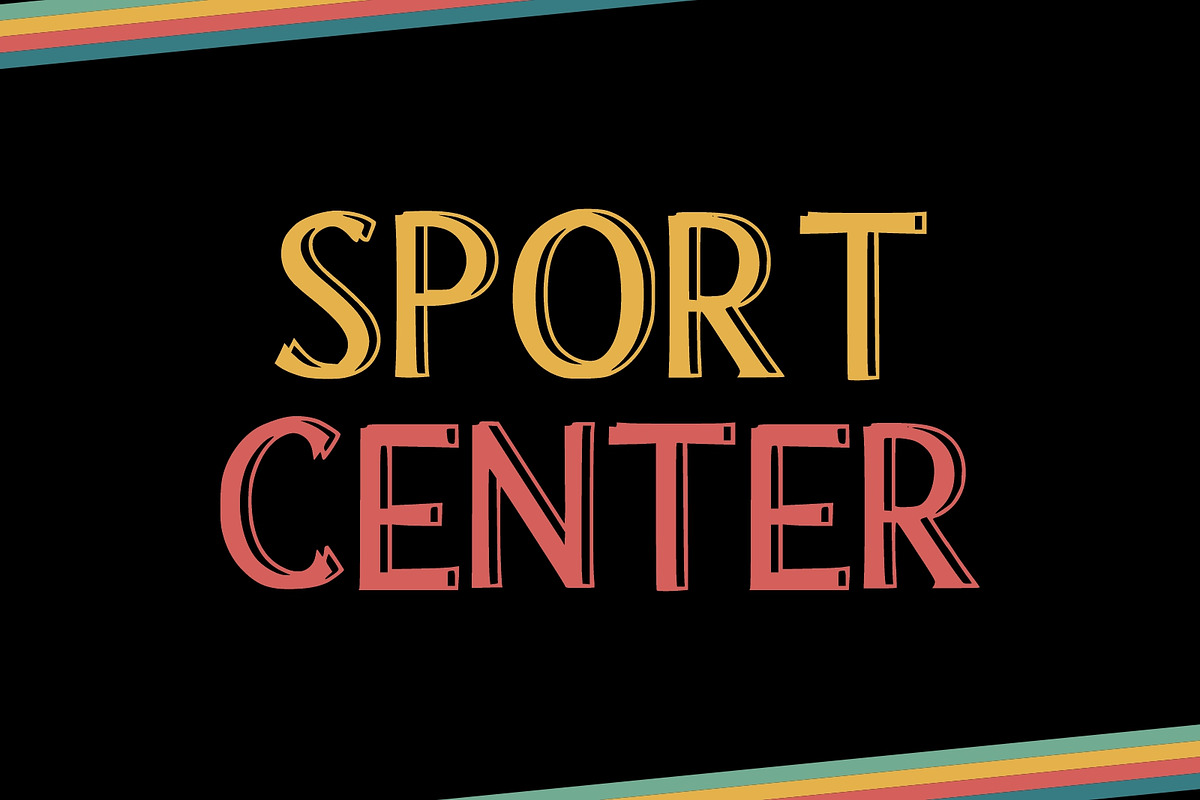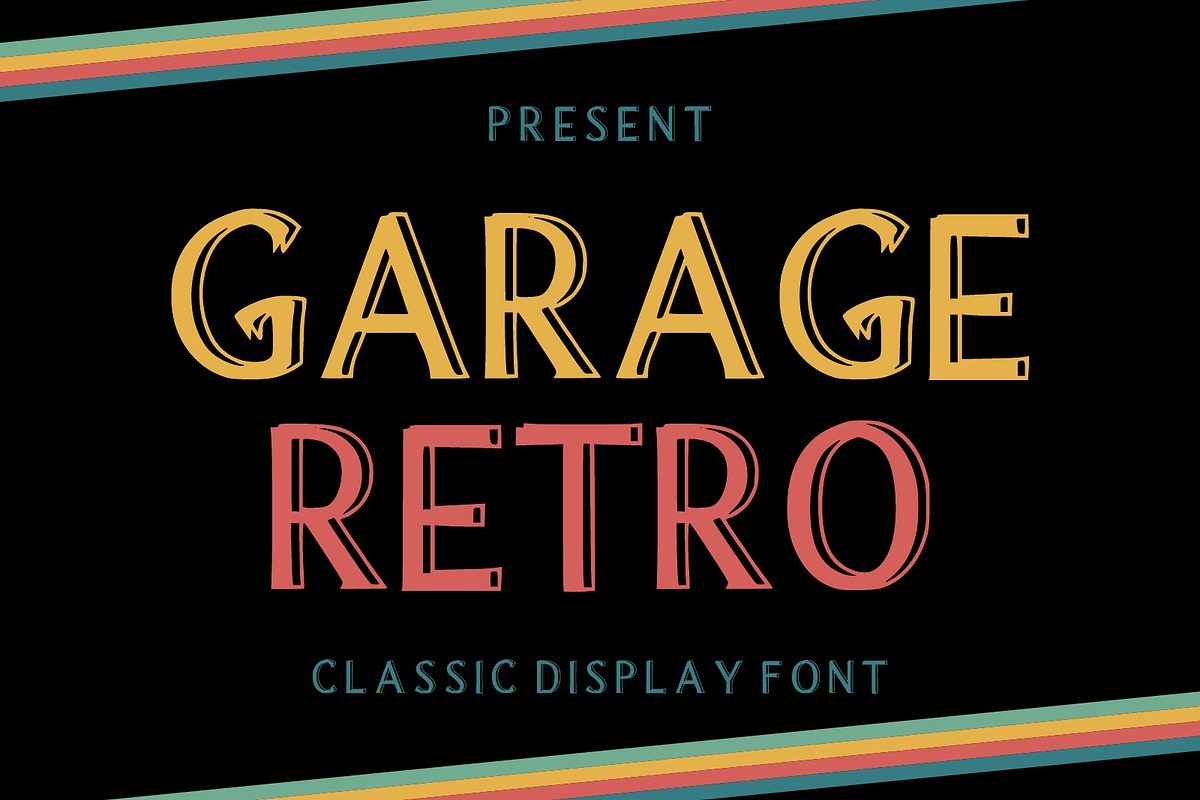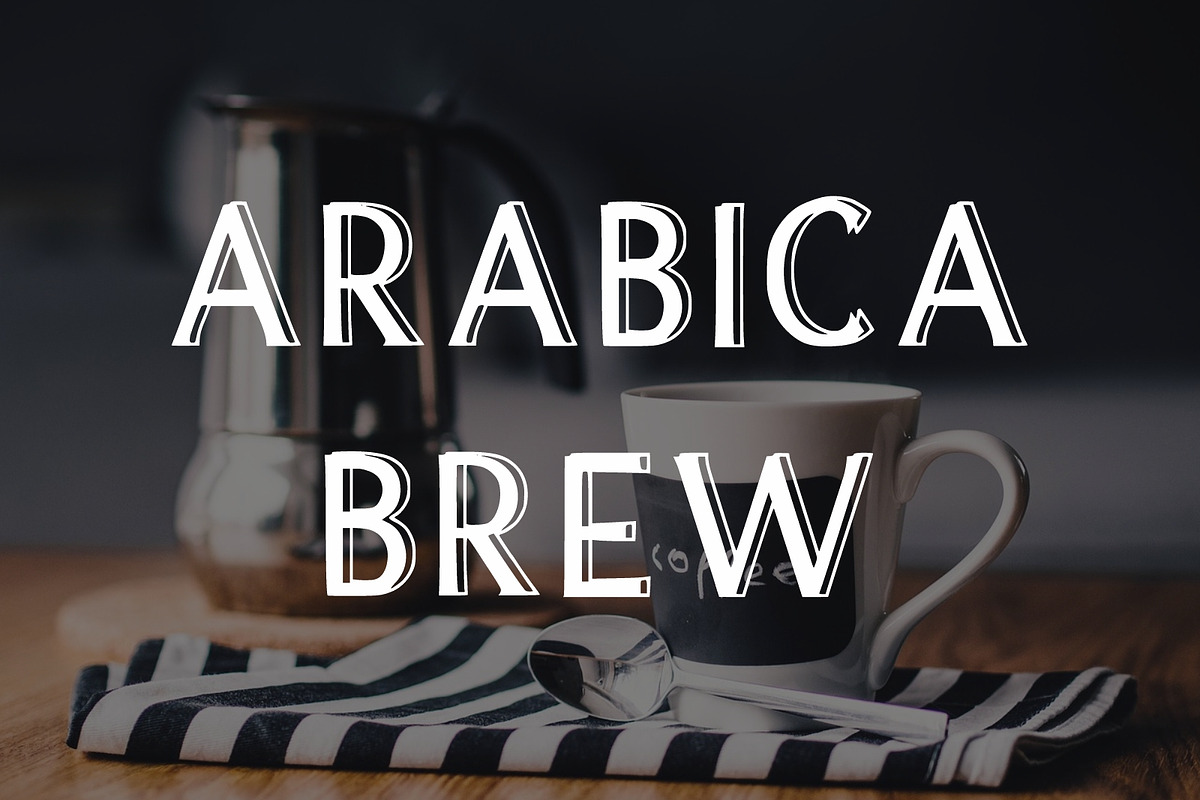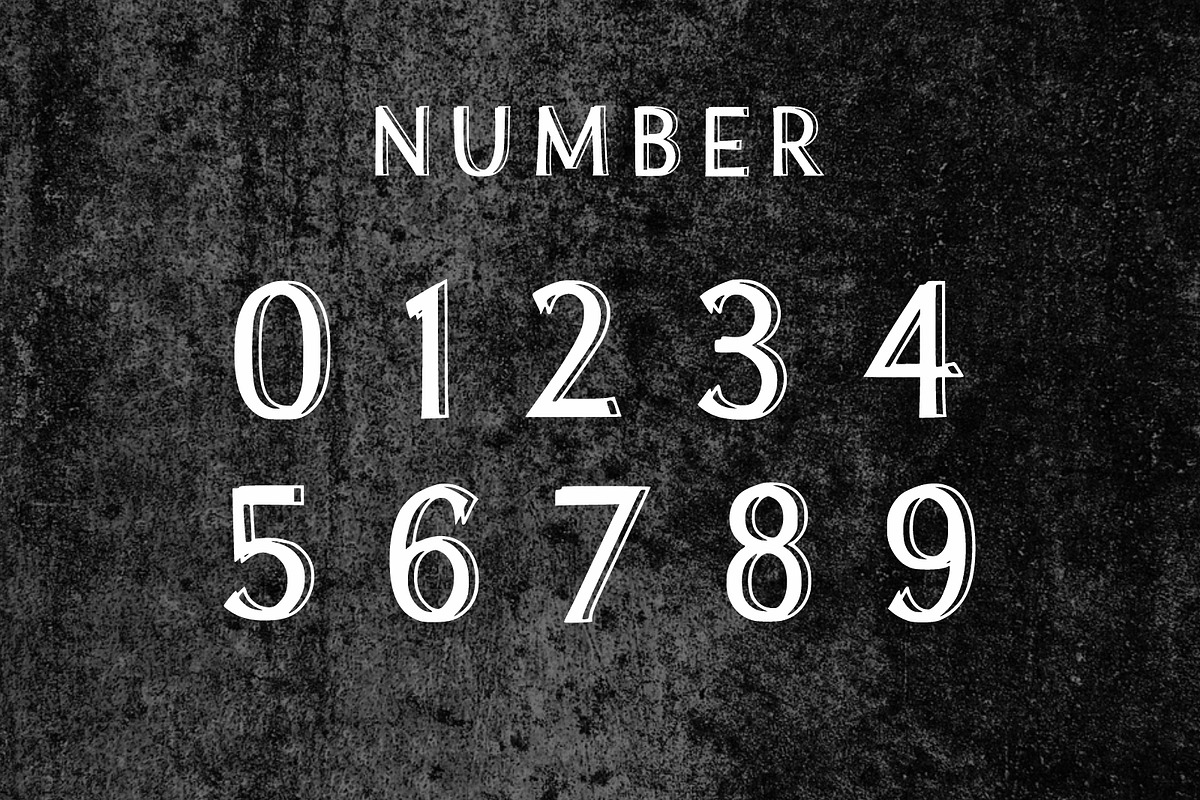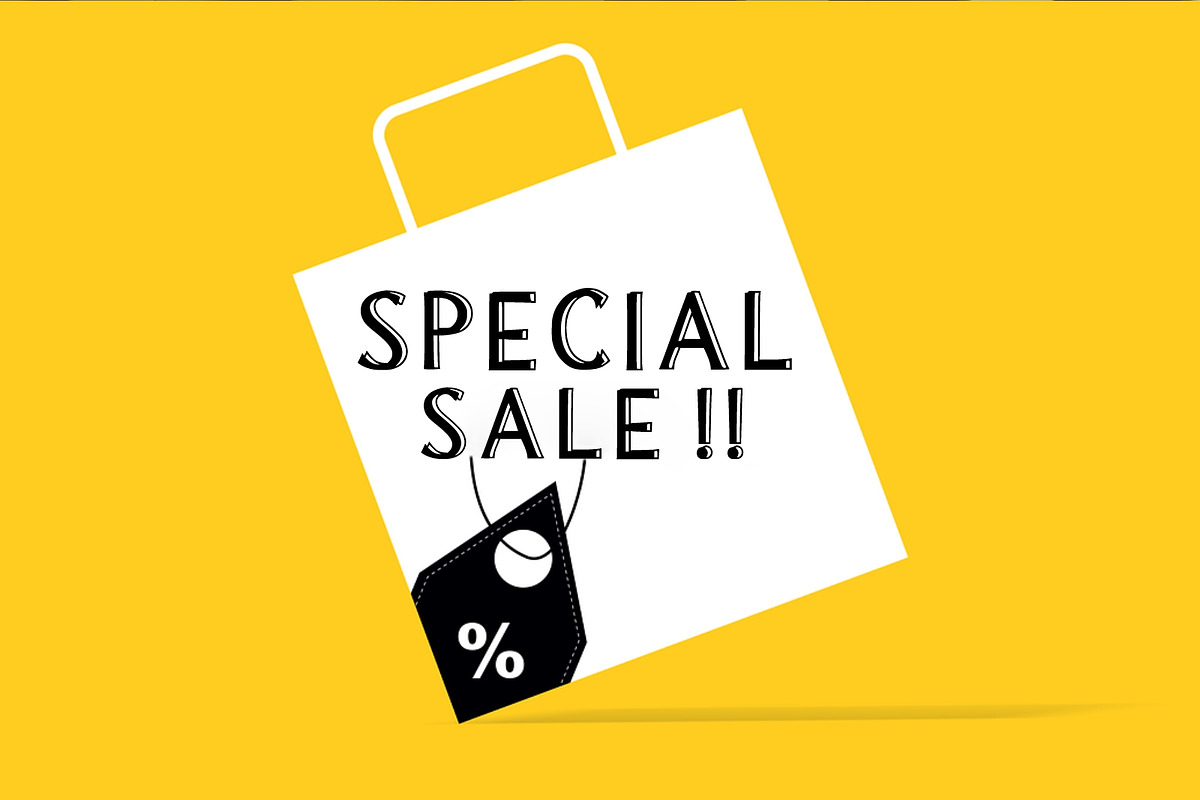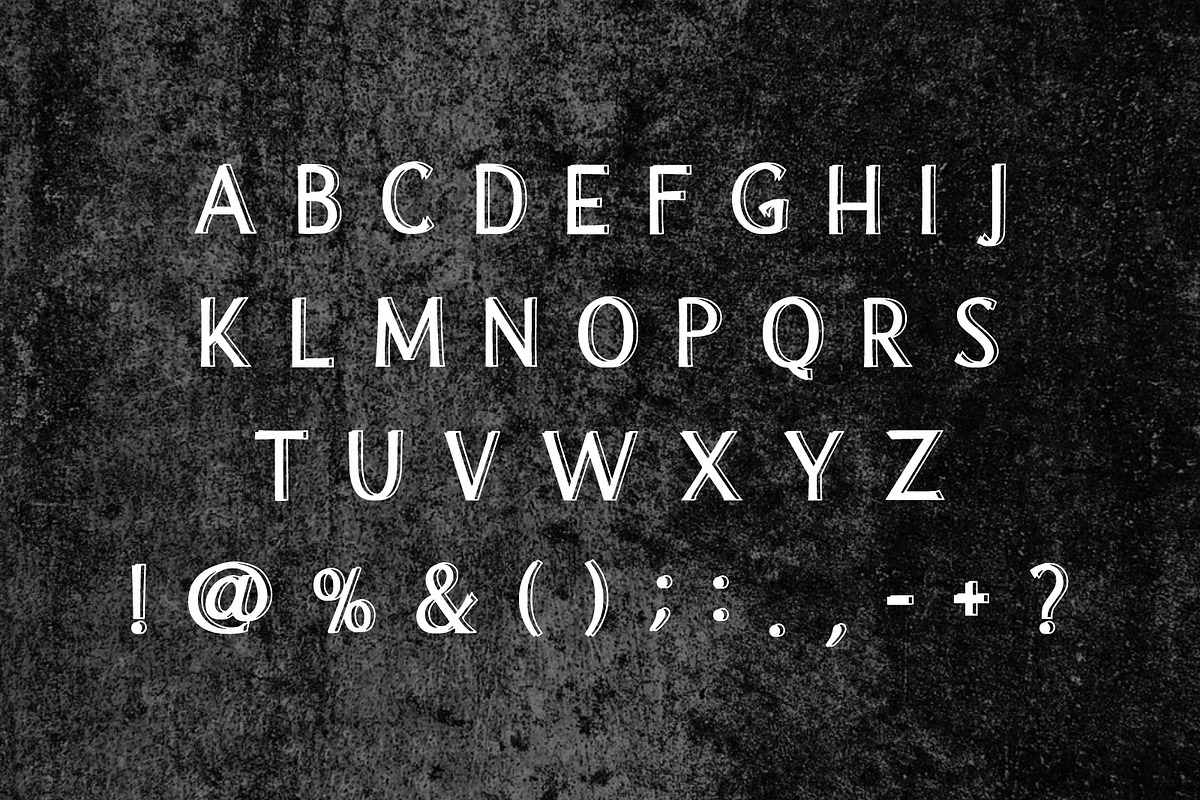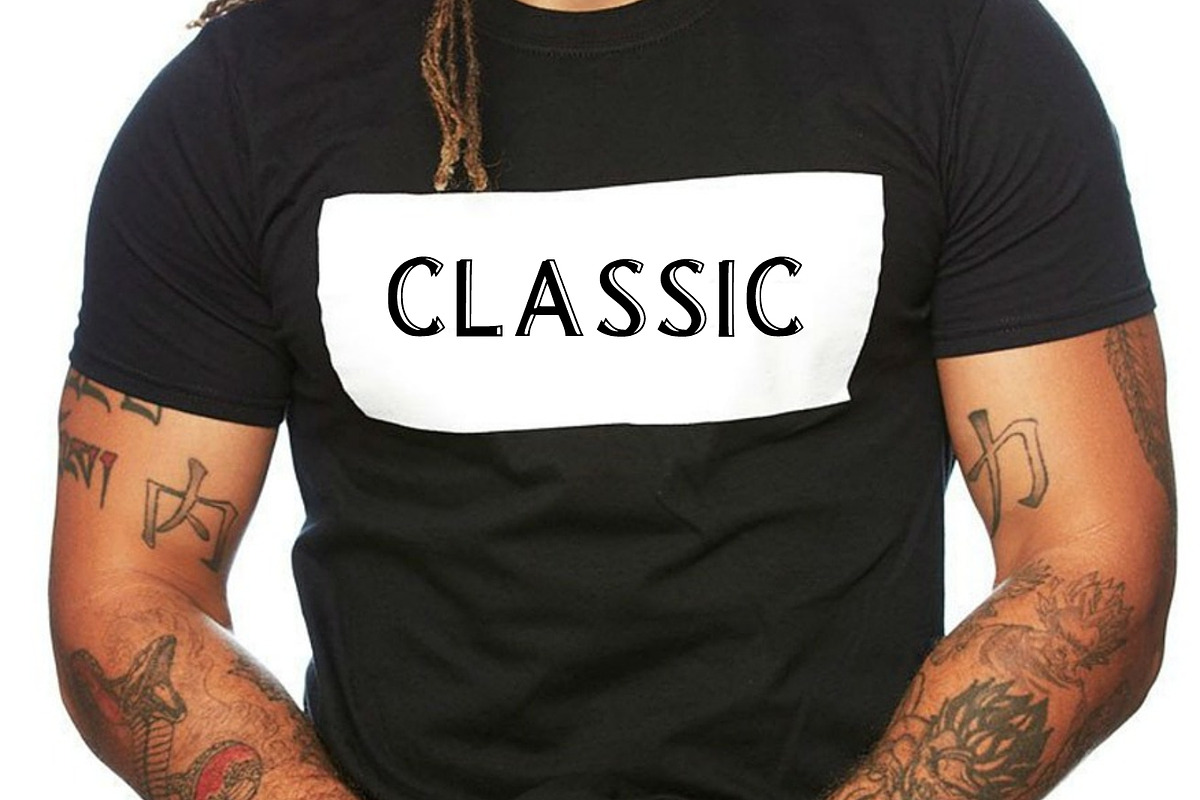
Garage Retro
Garage Retro is an authentic retro classic display font, inspired by college typography. This bold and dynamic font captures the energy and excitement of sports. It features a strong and commanding look, with thick lines and sharp edges that convey power and athleticism.